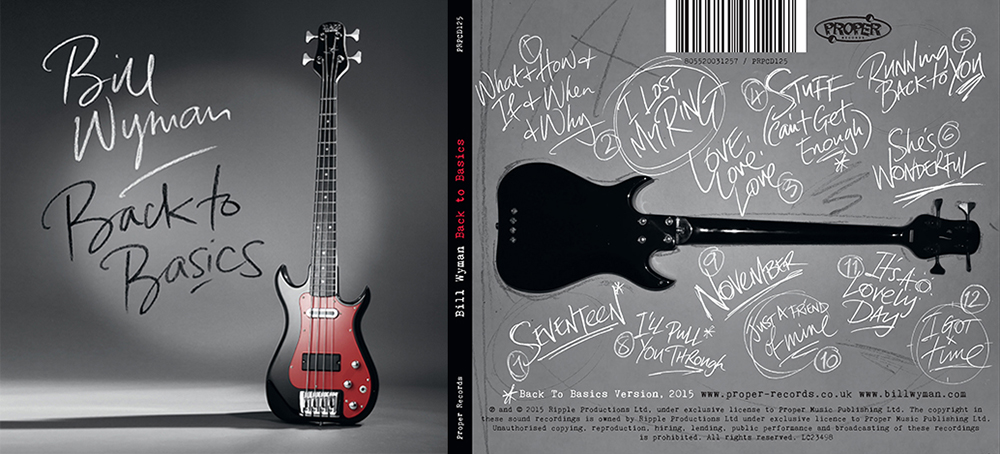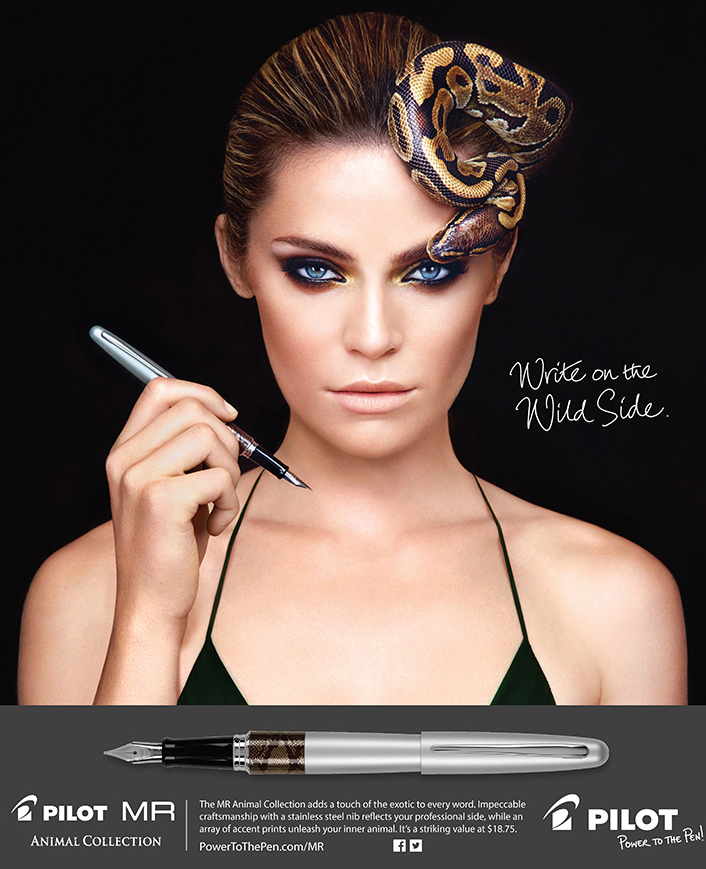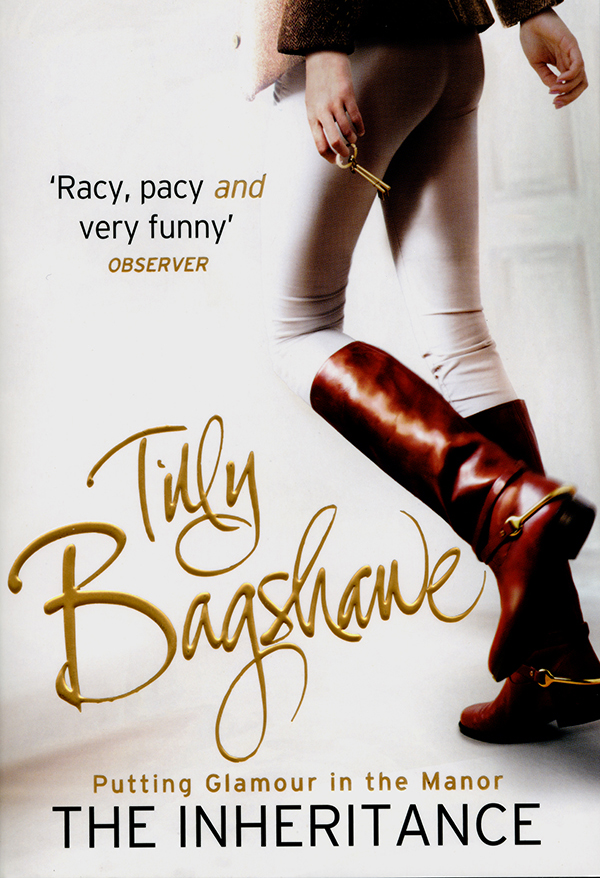
Lettering Legend - Ruth Rowland Interview
It's truly an honour to announce this months 'Lettering Legend'. Ruth Rowland is an active member of the Hand Lettering HQ group I manage on Facebook, and is often sharing her work. She is regularly inspiring group members and has been quite modest around her lettering career achievements. It might be that Ruth Rowland's name is unfamiliar to you, or you may have come across her huge portfolio of work before. There's a good chance you will have seen her work at some point though, whether you've realised it or not. As she has created lettering work for some really huge companies, including Coke Cola and the BBC. Ruth has also created lettering for a number of famous music albums too, including albums by James Blunt, Elton John and Van Morrison.
Ruth really is a perfect example of a 'Lettering Legend', she has an incredible body of professional work, and is regularly inspiring others by sharing her practice, play and experimentation, tools of the trade, along with the things that inspire her too. If you're unsure of what a 'Lettering Legend' is, or how to qualify then you can find a detailed explanation here. To summarise though, a 'Lettering Legend' is a significant person from the lettering world that has inspired others.
Find information on making a career out of lettering, Ruth's views on using social media to find work, and tips for dealing with awkward clients plus more in the following interview.
A lot of your lettering work is made using ink through calligraphy tools, brushes and brush pens. If the world went a bit post-apocalyptic and all ink sources dried up, what mediums would you use for your lettering work instead?
"I’ve always fancied carving letters in stone - sounds like it might be a good time to start!"
When did you first begin lettering, and how long was it before you were able to make a career out of lettering?
"I did a few freelance jobs while still a student - most notably for 4AD Records. This came about because Vaughan Oliver was teaching at Newcastle Upon Tyne, where I was studying a BA in illustration. He asked me to illustrate some lyrics for a Wolfgang Press album when he saw my hand lettering on a student project.
By the end of my Third Year I knew I wanted to explore lettering further and applied to study an MA at Central St Martins specialising in experimental lettering and typography. This meant I was now based in London, it was the late 1980’s so the internet was only in its infancy and it was important to be near design agencies and publishing houses to get work. Once I finished studying for my MA, I was well placed to make appointments with art directors and designers to show my new portfolio of lettering - it was nerve-wracking at times but eventually I started to get commissions. I worked out of a seedy rented room in Clapham, as a student I wasn’t used to having money, so I suppose I didn’t miss it."
You’ve been commissioned to create lettering work across many different categories. Some of these categories include branding, book covers, album covers, advertising and television. Many of your commissions have come from big named companies including Cadbury Chocolate, Coca Cola and the BBC. How have your commissions come about for projects across so many different types of category?
"I still work for some of those initial clients I contacted at the beginning of my career. I’ve been through several recessions so I learnt to be opened minded and expand my search for clients. I started out working predominantly for the music industry but as time progressed added publishing and advertising agencies to my client list. Many of the jobs I do are high profile but I’ve always been happy working for smaller companies or individuals. When I started out, lettering wasn’t as fashionable as it is today, I wasn’t that worried about what type of job it was, as long as it interested me. Inevitably the larger jobs are more news worthy but I’ve worked on a lot of smaller jobs for books, bands, magazines and products that are less well known but have played an essential part in developing my business. I’ve also built some great relationships with clients which have helped progress my work, expand my mind and make my life interesting. You hear a lot about personal relationships in books and films but actually business relationships can be some of the most formative in your life."
Twenty years ago the way of reaching people with portfolios of work was quite different. Do you think it’s easier for lettering artists to get their work found nowadays, due to social media and the internet? Or do you think it makes it harder, because so much more is being shared online?
"When I started out it was very unusual to see a portfolio of work. In some ways I think ignorance was bliss, you saw great work published in books and magazines but you weren’t overwhelmed by it, it gave you the space to develop your own ideas and direction. Art directors commonly made appointments to see portfolios, so you had the opportunity to make personal contact, present your work and get feedback. My work was mostly commissioned by London based companies and artworks were biked across the capital on completion.
It’s hard to know if the ability to work globally outweighs the increased competition as we compete online in a world market. At its best the internet has opened up the field of illustration and lettering to students so they understand it better. It can be supportive, inspirational and educational. I love that it’s possible to work with anyone in the world at the click of a mouse, send artworks in minutes or chat with someone in Argentina about some obscure letterform during my afternoon tea-break. I think marketing was simpler when I started out but the internet has certainly made life more interesting, even if it isn’t any easier to get work."
As you have so much experience working with different clients, have you ever encountered any difficult ones? If so, what advice would you give to those starting their lettering careers on how to deal with difficult clients?